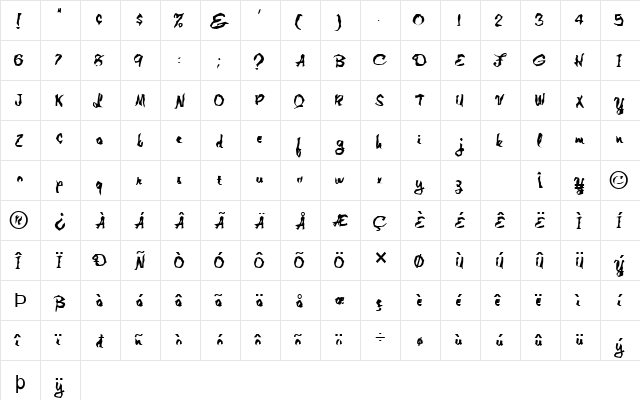
FZ WACKY 1 Normal
Design Context for FZ WACKY 1 Typeface
FZ WACKY 1 is a composed and adaptable typeface that performs quietly and consistently across a wide range of design contexts.
Pro Tip: Use FZ WACKY 1 in both headline and body roles to test its range before committing to a single application.